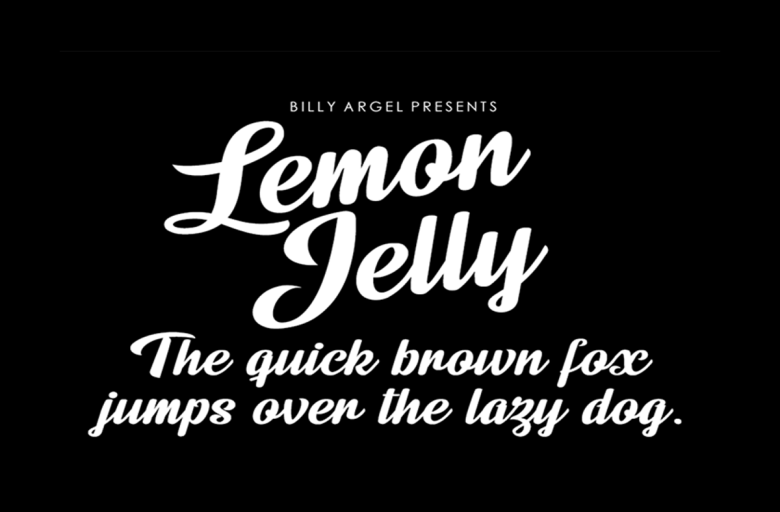
Lemon Jelly Font
One of the favored handwriting fonts is lemon jelly. This font is additionally almost like the other script type fonts. You can download this font absolutely free fo charge (Personal use only). Thickness is far enough to navigate. With no condition, you’ll use this font for private usages.
Billy Argel designed this true sort of regular font. The font is available from 2018. Appearance is probably going handwriting but usage isn’t limited. The author structured Lemon Jelly font to more make eye-catching your design. This font gives your document and styles an additional approaching power.
Lemon Jelly Script Font